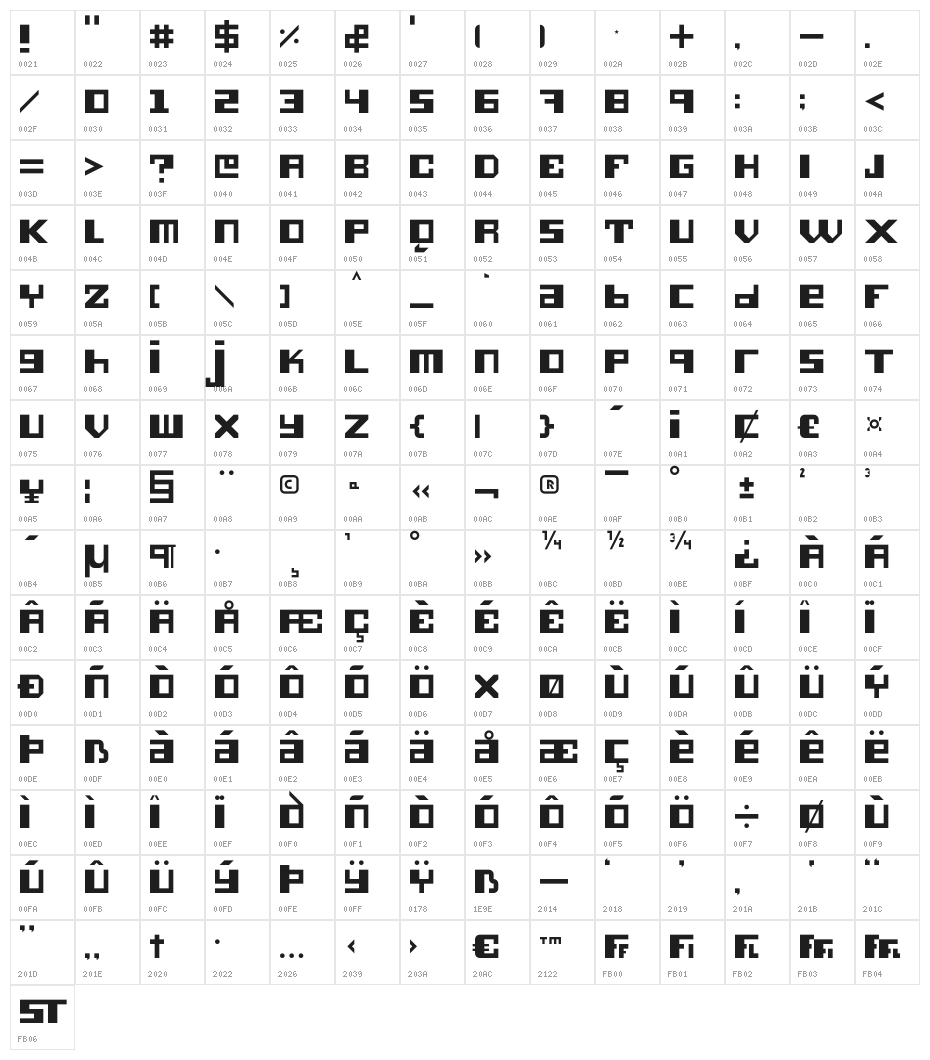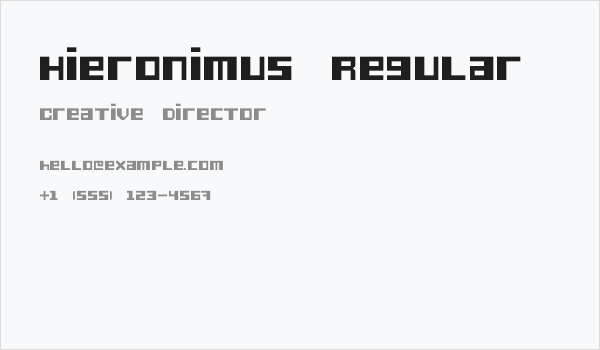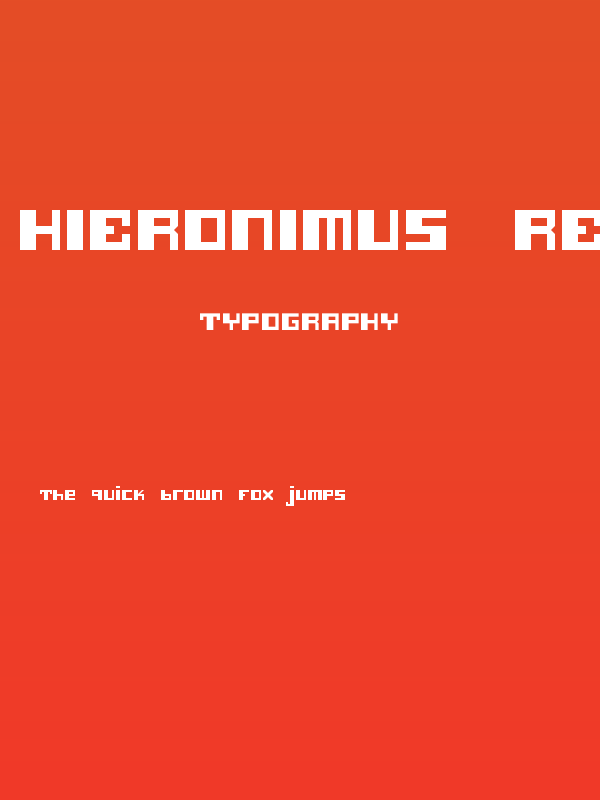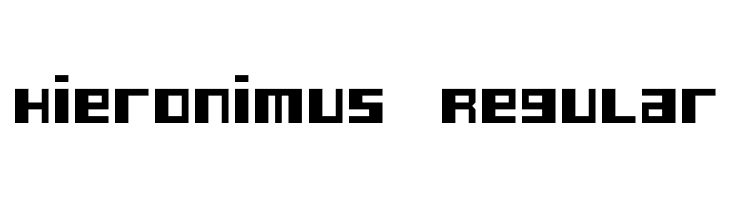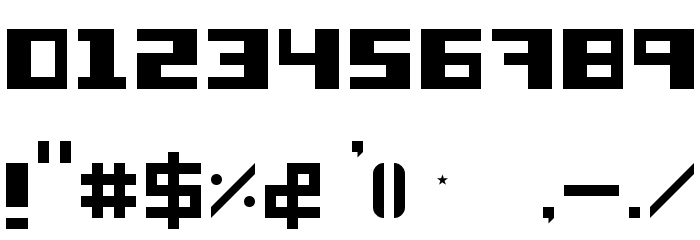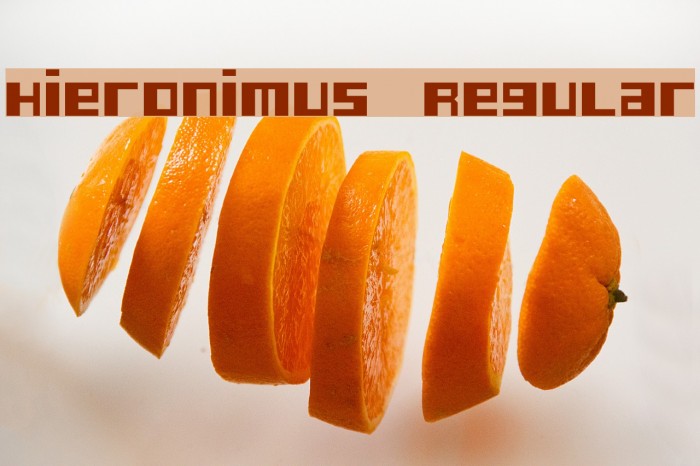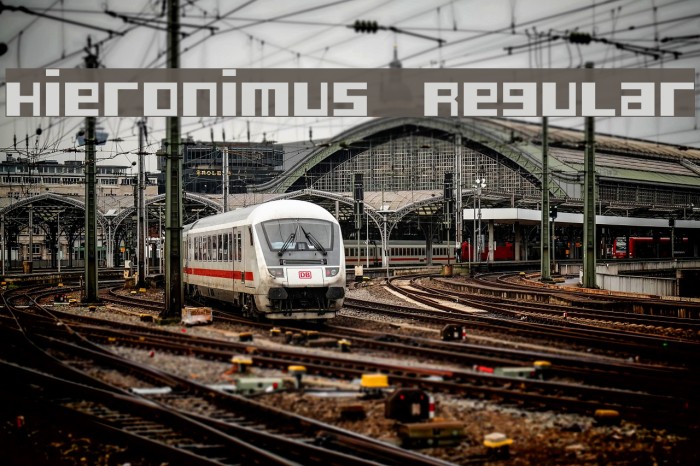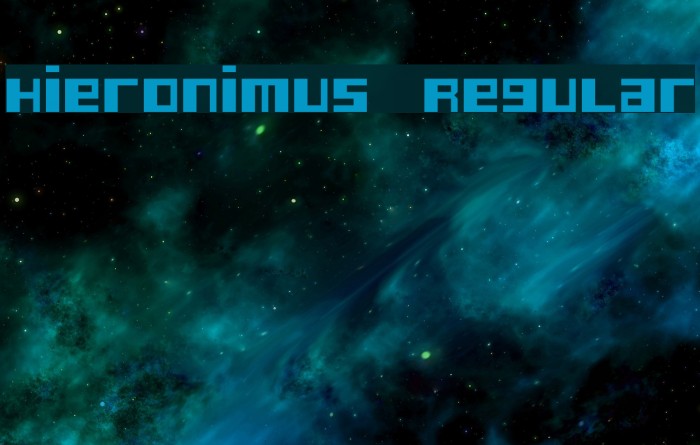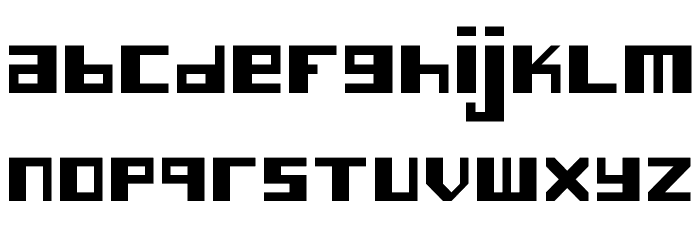
Hieronimus Regular Font
Hieronimus Regular Description
This font features a bold, geometric design with strong, angular lines and a modern aesthetic. The uppercase and lowercase letters maintain a consistent block-like structure, giving the typeface a uniform appearance. The numerals and special characters follow the same geometric style, ensuring cohesion across all elements. The font's distinct style makes it suitable for projects that require a futuristic or tech-inspired look. Its boldness and clarity make it highly legible, even at smaller sizes.